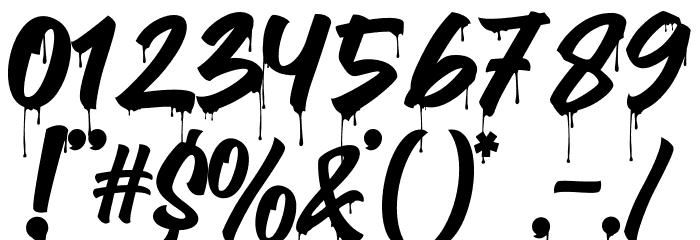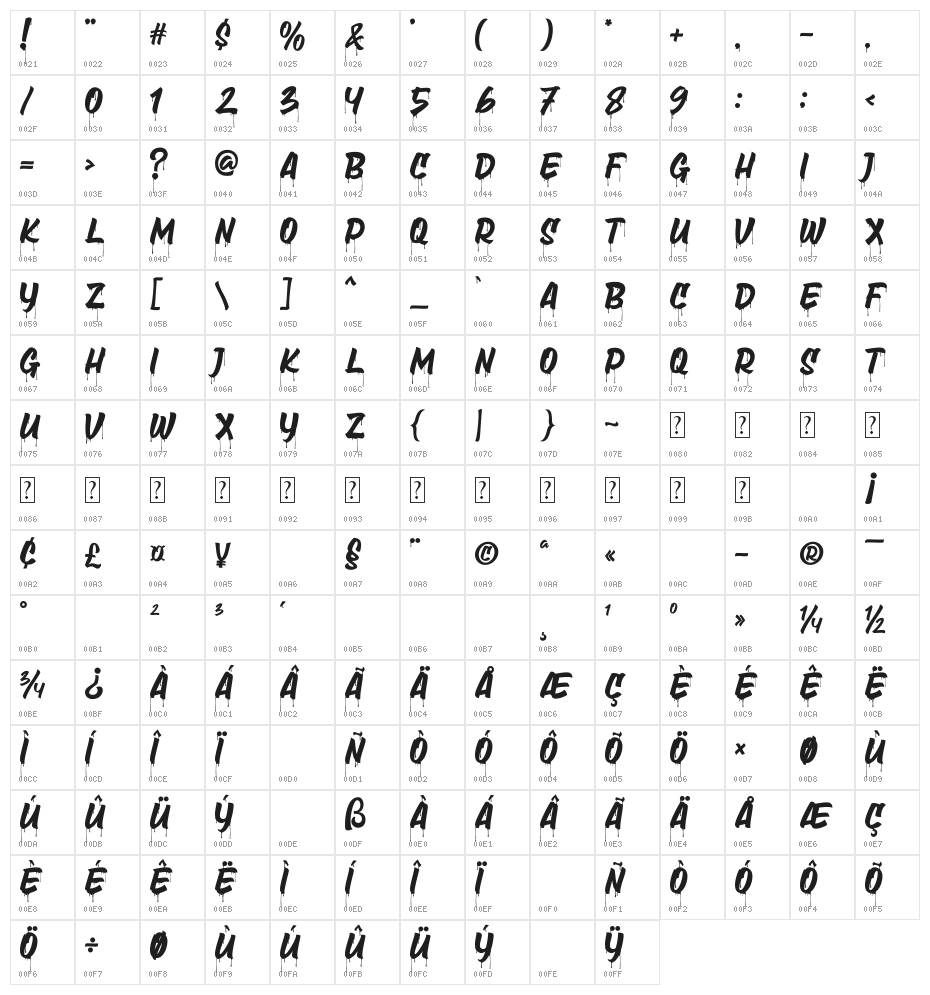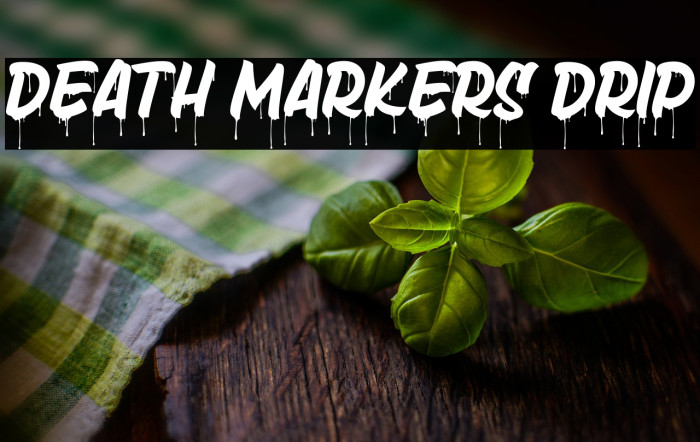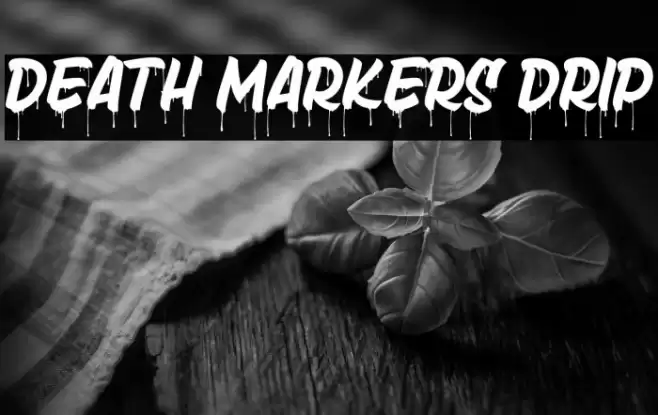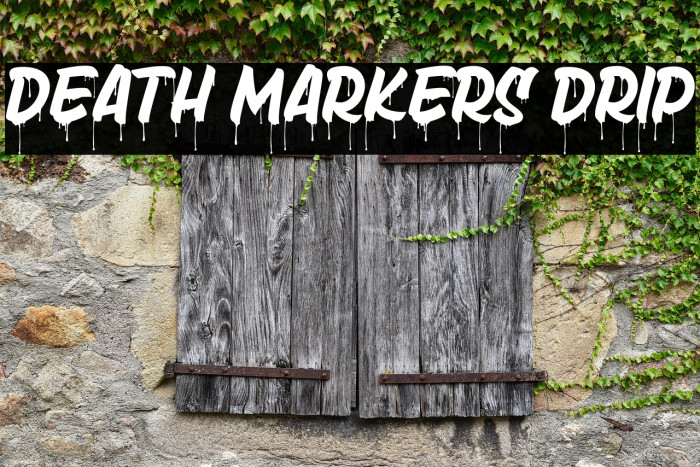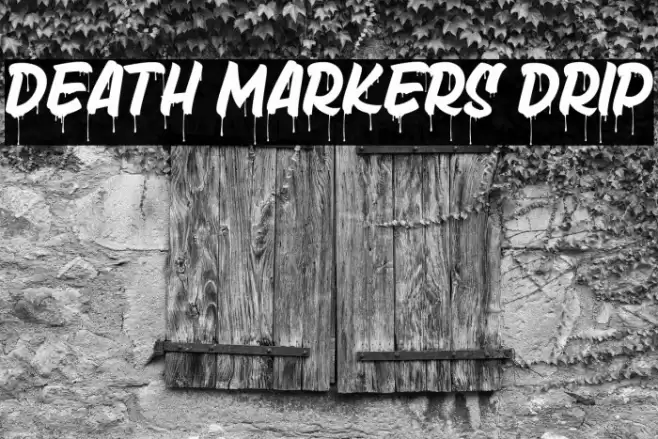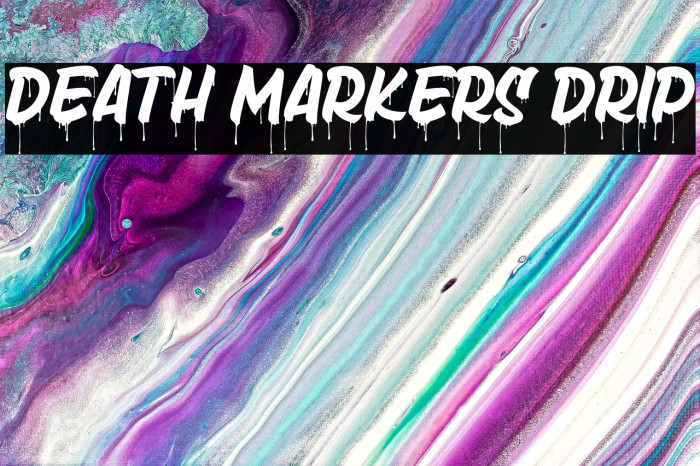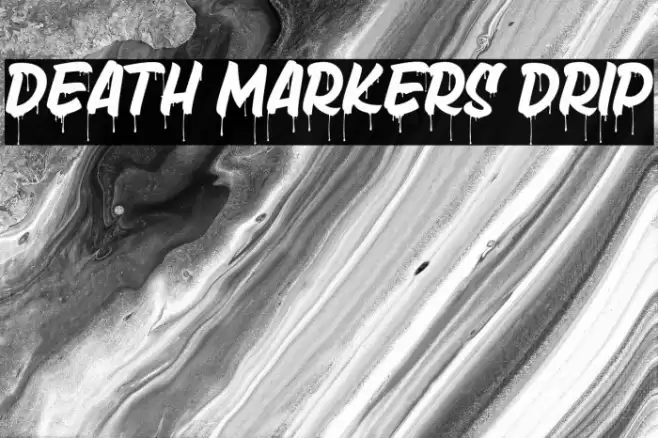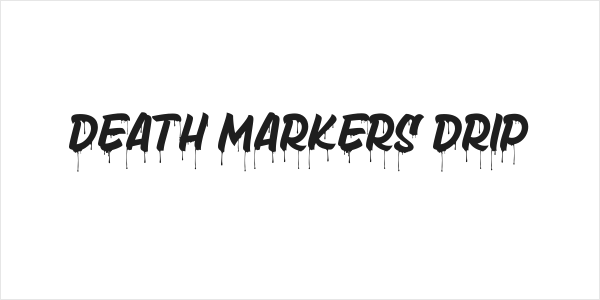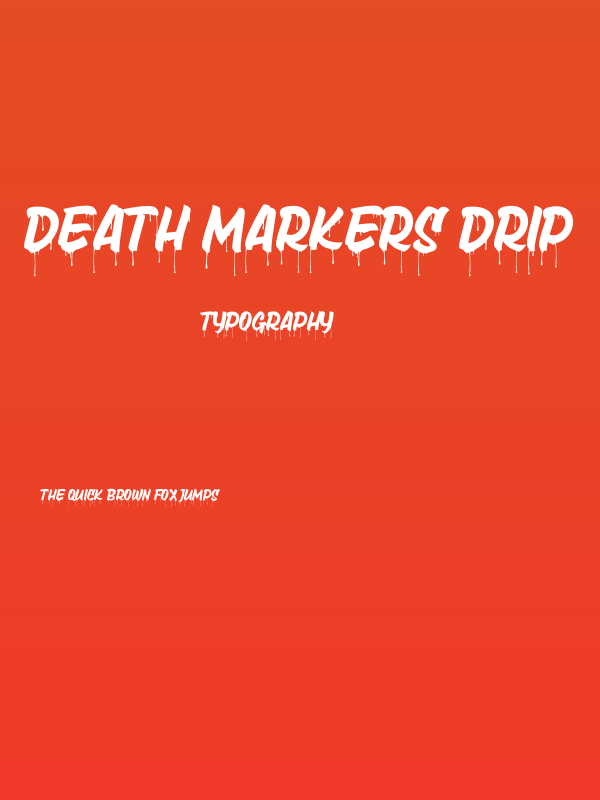
Death Markers Drip Font
Death Markers Drip Description
This font features a bold, graffiti-inspired style with a dripping effect that gives it a raw, edgy appearance. The characters are thick and dynamic, with each letter appearing as if it has been spray-painted and is slowly dripping down. This creates a sense of movement and urban energy. The uppercase and lowercase letters maintain a consistent style, with the numbers and special characters also reflecting the same dripping motif. The font's design is highly decorative, making it ideal for projects that require a strong visual impact.
| Overall Style | Urban, Edgy, Graffiti |
| Use Case | Logos, Posters, Album Covers |
| Proposed Projects | Ideal for street art designs, music album covers, urban-themed posters, and edgy branding projects. |